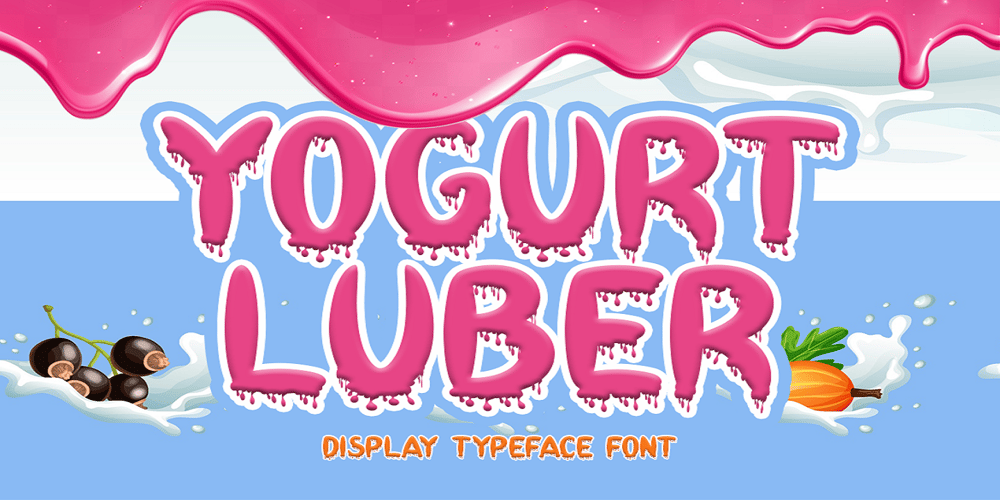
Yogurt Luber
Yogurt Luber font
Yogurt Luber Font Family was designed by Saiful Anwar and published by Sealoung. Yogurt Luber contains 1 styles and family package options. Yogurt Luber is a collections of cute and lovely doodles in one font. No matter the topic, this font will be an incredibly asset to your fonts’ library, as it has the potential to elevate any creation.